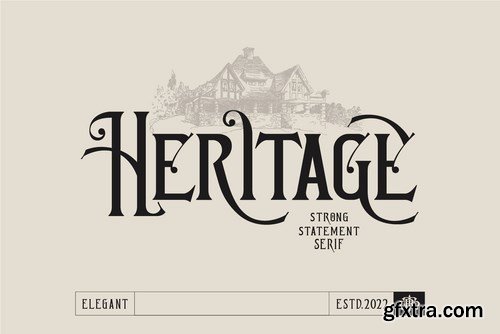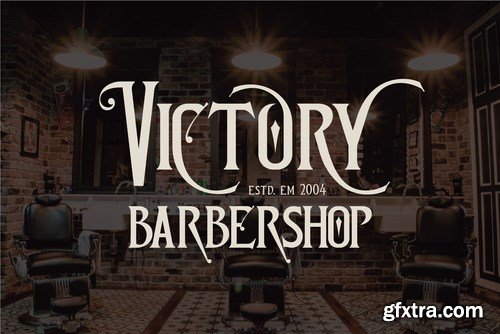
Archsara is a vintage typeface; inspired by hanging sign typeface by the late 9th century , this font is made to bring stand out statement for your designs project.
Crafted with simple & elegant decorative shape, A solid type face for artsy logo, Headline, document, sign, etc that need strong, brave, motivation & fearless looks. Highly recommended for any kingdom & Unite themes (knight, dragon, viking, sword,etc).
OPENTYPE FEATURES - First lowercase (after a capital) and last letter swap automatically. You just need turn on Contextual Alternates. Usually Adobe Photoshop and other programs activate it by default.